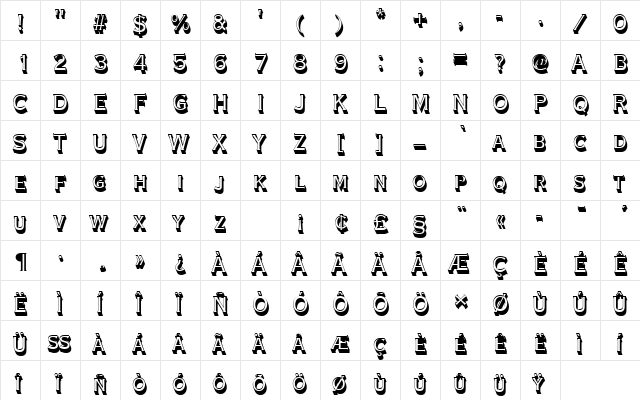
CopperplateTMedConSh1 Regular
Design Context for CopperplateTMedConSh1 Typeface
CopperplateTMedConSh1 takes a measured approach to typography — its balanced proportions and neutral character make it a reliable workhorse for both digital and print work.